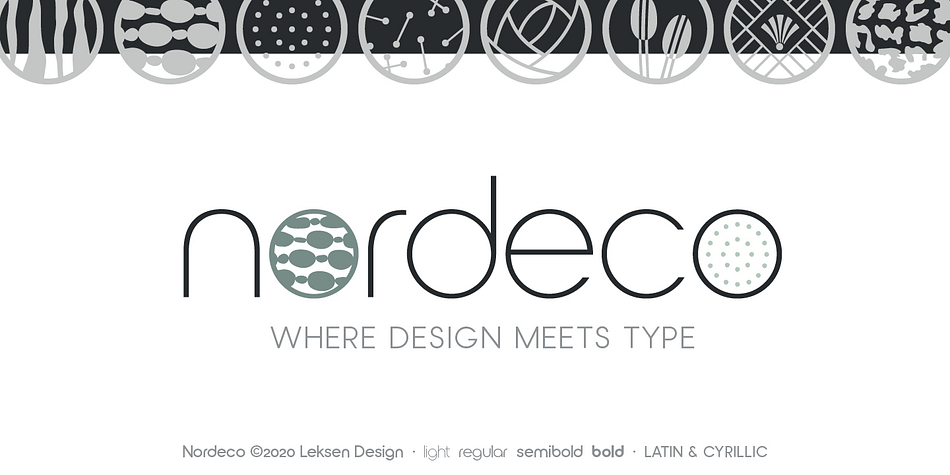
Nordeco Cyrillic
Designed by Andrea Leksen, Nordeco Cyrillic is a sans serif font family. This typeface has four styles and was published by Leksen Design.
Inspired by her Scandinavian heritage, Andrea Leksen created this modern geometric sans serif reminiscent of Scandinavian design and typography. With its tall x-height and monoweight strokes, Nordeco will be best showcased at large sizes, in headlines and other display uses. It contains 100 alternates with ornamental letters, borders, paragraph separators and seamless wallpapers for your designing pleasure. Designs include stripes, dots, art deco and leopard print.